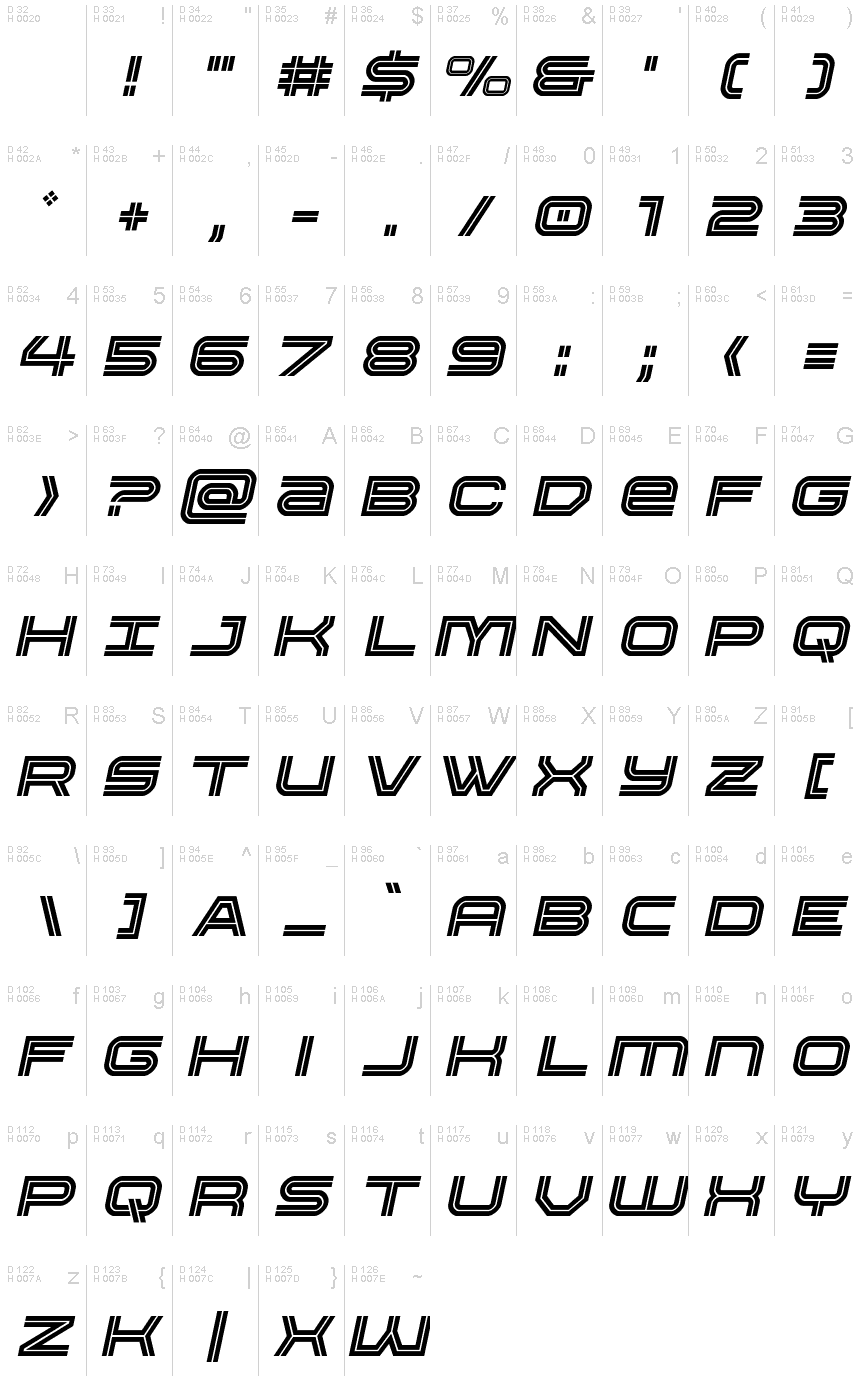
Gran Torino Title Italic
Introducing Gran Torino Title Italic, a bold, wide techno display font designed by Daniel Zadorozny. Ideal for creating attention-grabbing titles for music videos, websites and posters with its modern and eye-catching style.